Cinetype
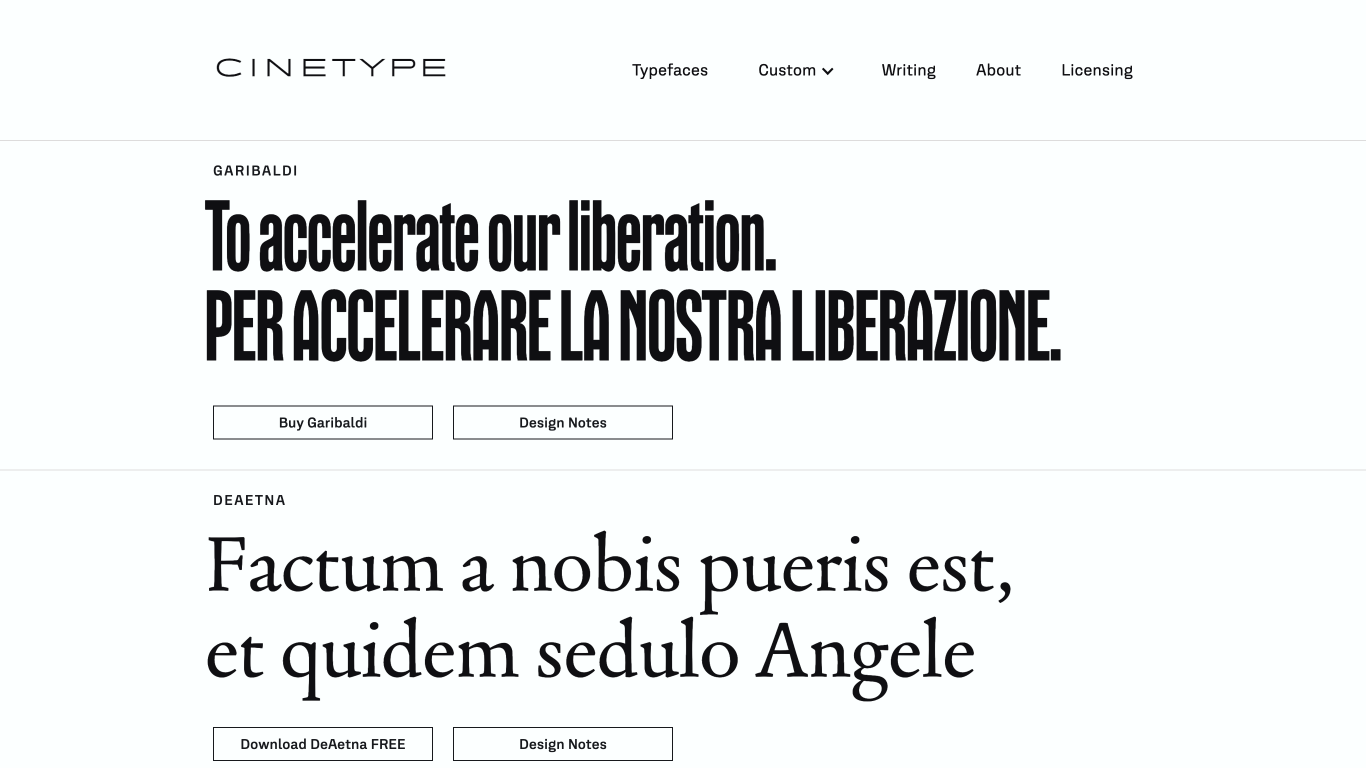
Cinetype is the London-based studio of Michele Patanè, a typeface designer, font engineer, and researcher. The foundry specializes in creating typefaces that blend functional, utilitarian aesthetics with distinctive elegance, as exemplified by their 'Fabbrica' sans-serif typeface. While the exact founding date isn't specified, Cinetype has been active in the type design industry in recent years.